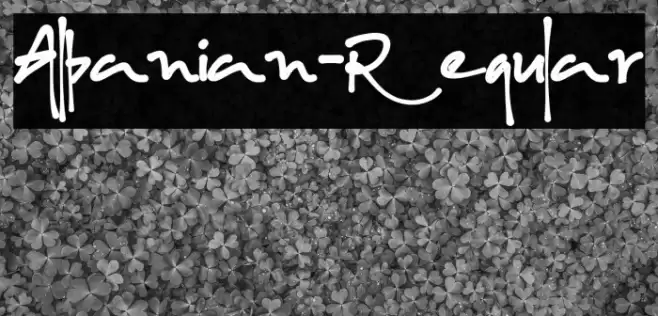
Albanian-Regular Font
Albanian-Regular Description
This font exhibits a dynamic and expressive handwritten style, characterized by its fluid and organic strokes. The uppercase letters are bold and slightly irregular, giving a sense of spontaneity and creativity. The lowercase letters maintain a consistent flow, with some characters featuring unique loops and curves that add to the font's charm. Numbers are clear and distinct, while special characters are crafted with the same artistic flair. Overall, this font captures the essence of personal handwriting, making it ideal for projects that require a personal touch.
A dynamic handwritten font with expressive and fluid strokes from Uncategorized fonts.